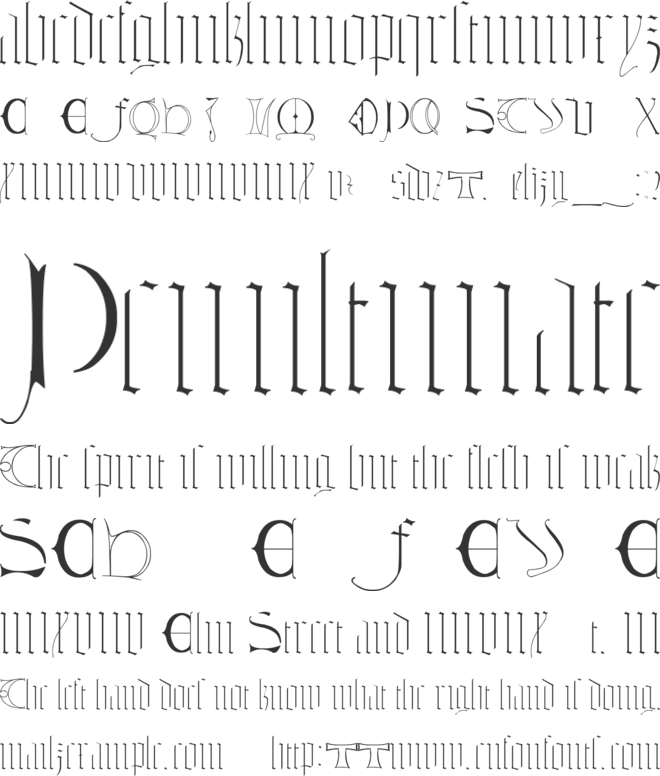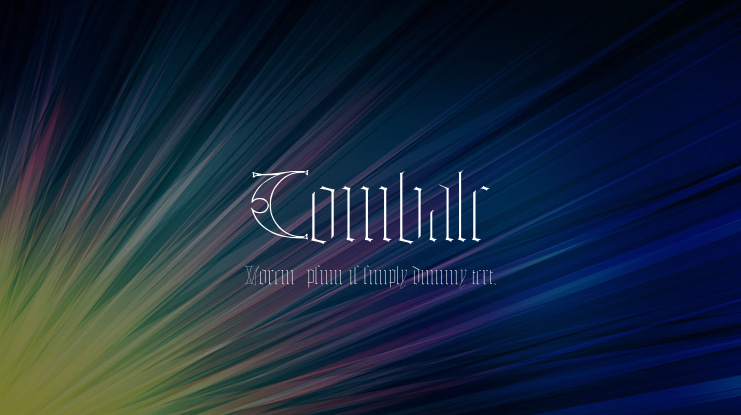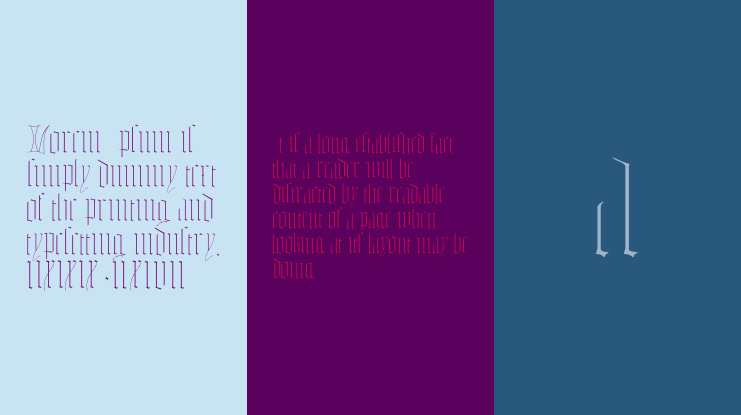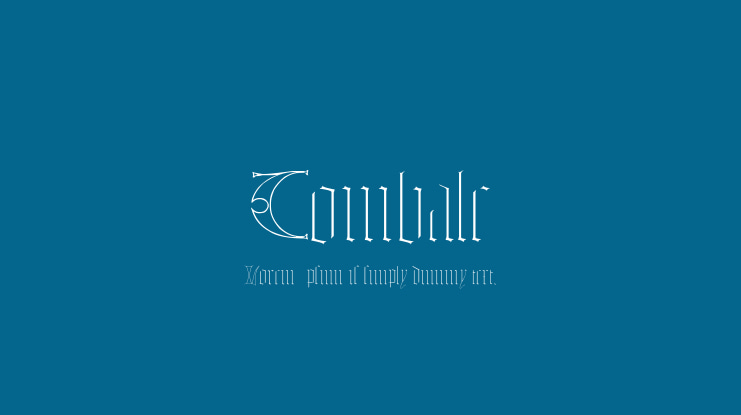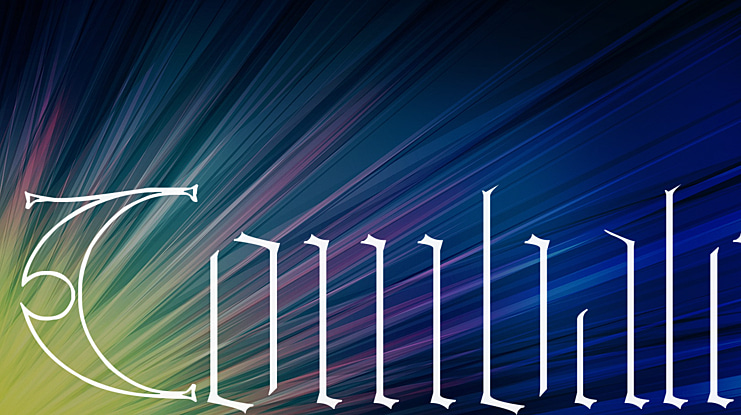
Tombale Font
This font is based on medieval tombstone epitaphs from the late 15th/early 16th century churches and is part of a bigger historical work.
You should use a great size for letters as this font is designed to be big.
---------------------------------- Cette police est basée sur des épitaphes de tombes médiévales allant de la fin du XVème au début du XVIème siècle et fait initialement partie d'un travail historique.
Il est fortement recommandé d'utiliser de grandes tailles de caractères pour cette police afin d'avoir un rendu esthétique optimal.
Anciens escrits de l'an 1500 (Haut-Doubs)